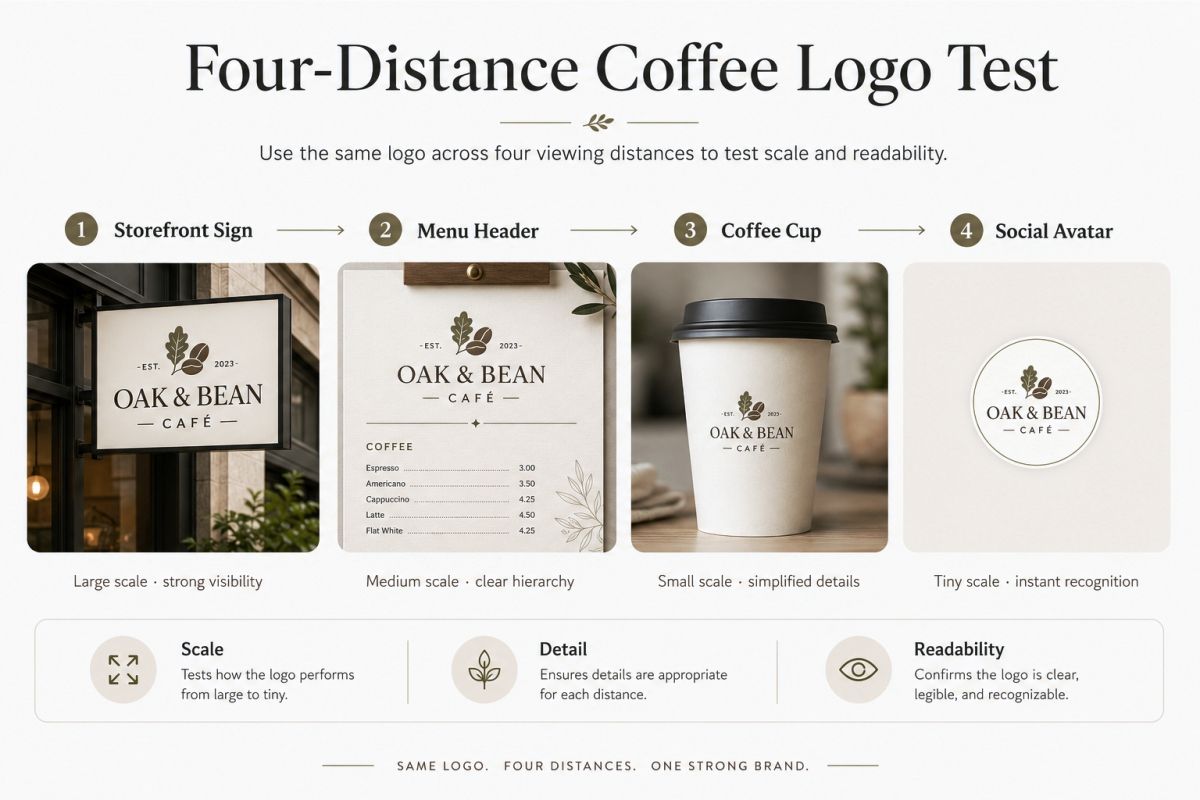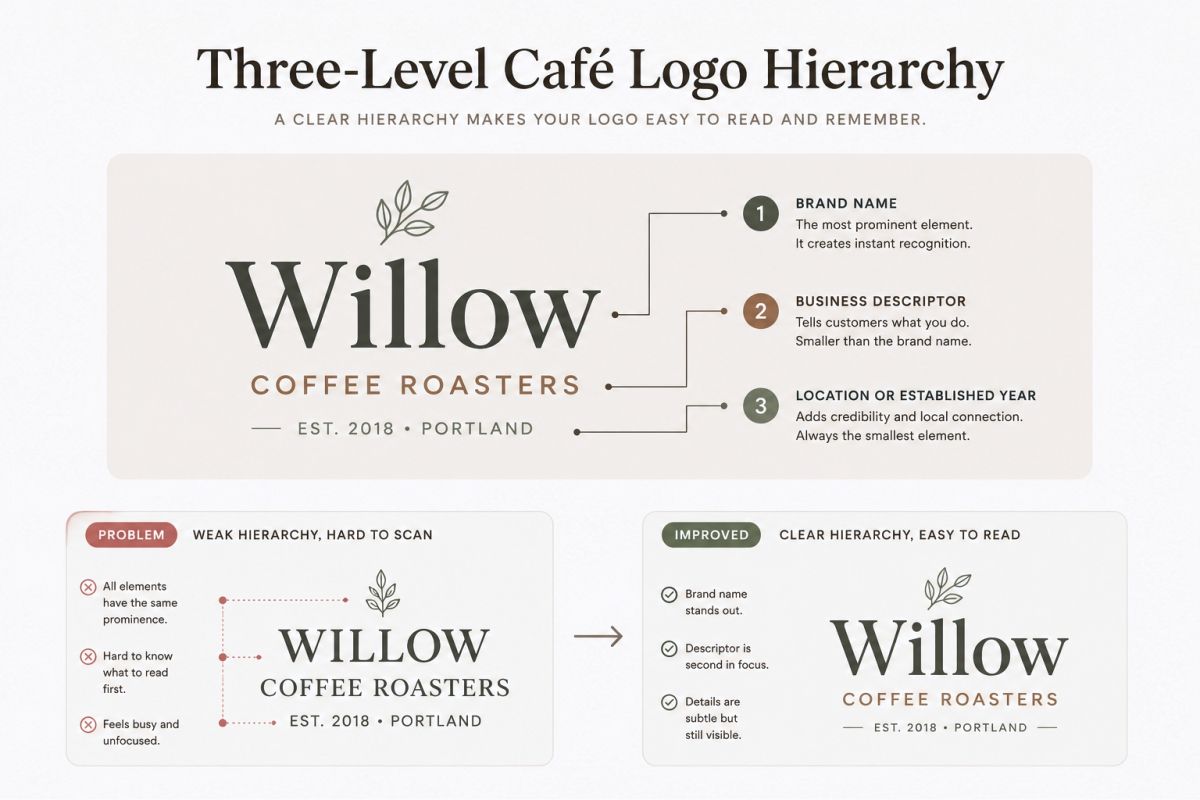
Fonts for Coffee Shop Logos: Cozy, Retro, and Modern Ideas!
Choosing fonts for coffee shop logos can feel like the fun part of building a café brand.
You browse a few typefaces. Try the shop name in each one. Add a coffee cup icon. Then pick the version that feels the most “coffee-like.”
The problem is that many café logos are chosen this way.
That is why so many of them look familiar. A handwritten wordmark. A circular badge. A small coffee bean. Perhaps “Est. 2026” underneath.
None of those elements are automatically bad. But when they appear without a clear reason, your logo can start looking like a template rather than a real brand.
I prefer to approach café typography from a different angle.
Your font should not simply communicate coffee. It should communicate what kind of coffee experience you offer.
Is your café quiet and slow?
Fast and urban?
Warm and neighborhood-focused?
Experimental and specialty-driven?
Retro and playful?
The right typeface helps customers understand that atmosphere before they enter.
Key Takeaways
• Choose your logo font based on the café experience, not only the visual trend.
• Test the logo from storefront size down to a social media avatar.
• Use one expressive font as the hero and a quieter font for supporting information.
• Pay attention to letter spacing, stroke thickness, and the actual shape of the café name.
• Test the logo on cups, menus, signs, packaging, stamps, and digital screens.
What Fonts for Coffee Shop Logos Actually Need to Do
A coffee shop logo has several jobs.
It needs to be recognizable from the street. It needs to look appealing on a takeaway cup. It should remain readable on a loyalty stamp. It may also need to fit inside a tiny Instagram profile image.
That is a lot of work for one wordmark.
A beautiful font may look impressive on a large branding presentation but become weak when printed on a small paper cup. A delicate script may feel intimate on screen but turn into a tangle when used on an outdoor sign.
This is why you should evaluate café fonts as working tools, not isolated pieces of decoration.
A useful coffee shop logo font should provide:
• A clear visual personality
• Readable letterforms
• A recognizable silhouette
• Strong performance at different sizes
• Enough flexibility for print and digital applications
• A tone that matches the customer experience
Your goal is not to find the most decorative typeface.
Your goal is to find the typeface that makes your café feel more specific.
Start With the Café Atmosphere, Not the Font Category
Before opening your font library, describe the café in a few words.
Avoid broad words such as “beautiful,” “professional,” or “unique.” Almost every business wants those qualities.
Use words that describe how the space should feel.
For example:
• Calm
• Familiar
• Curious
• Refined
• Cheerful
• Raw
• Nostalgic
• Precise
• Unhurried
• Social
These words give you a stronger starting point.
A calm café may suit a soft serif with open spacing. A raw micro-roastery may need a condensed sans serif with firm vertical strokes. A cheerful neighborhood café could use a rounded display font with slightly irregular forms.
The personality should guide the letterforms.
Translate Brand Words Into Typographic Features
You can turn abstract brand words into visible design decisions.
Brand feelingUseful typographic features
CozySoft curves, moderate weight, open counters
RetroChunky forms, warm serifs, rounded terminals
ModernSimple construction, controlled spacing, clean geometry
ArtisanalHuman details, subtle irregularity, tactile texture
PremiumRefined proportions, elegant contrast, generous spacing
IndustrialCondensed shapes, firm strokes, practical construction
PlayfulBouncy rhythm, rounded corners, unexpected details
QuietLow contrast, restrained shapes, comfortable spacing
This process keeps you from choosing a font just because it looks attractive in a preview image.
Use the Four-Distance Test
Coffee shop branding appears at several viewing distances.
A reliable logo should work at all of them.
1. Street Distance
This includes storefront signage, projecting signs, window graphics, and exterior walls.
At this distance, the logo needs a strong silhouette. Thin strokes and tiny internal details may disappear. The overall word shape becomes more important than individual decorative features.
2. Counter Distance